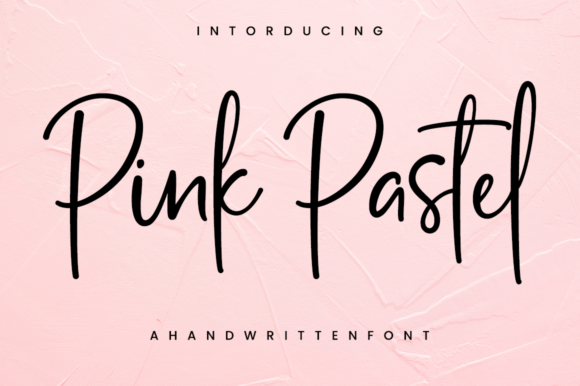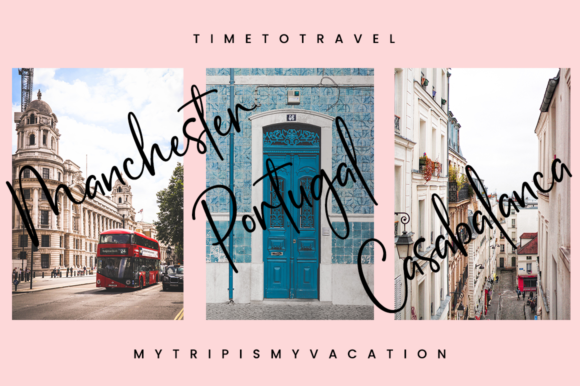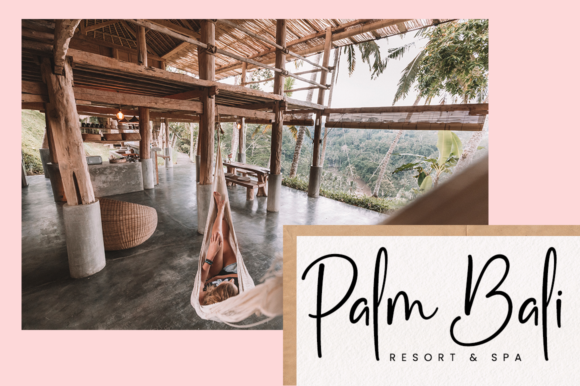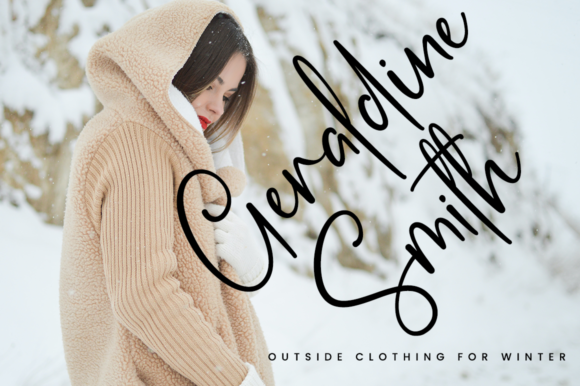
Pink Pastel Font
About the Pink Pastel Font
Make a bold statement with Pink Pastel Font, a powerful and memorable font. Pink Pastel is a lovely and delicate script font that exudes elegance and class. This font was particularly crafted for those who need a beautiful and refreshing look to their designs.
Pink Pastel’s delicate script is ideally suited for projects requiring a touch of elegance and sophistication. It works exceptionally well in branding applications such as logos for boutiques, wedding stationery, or product packaging for high-end cosmetics. Headlines and short, impactful text benefit most from its refined aesthetic; however, its thin strokes make it unsuitable for body text or long paragraphs.
The font’s inherent softness makes it best paired with fonts that offer a pleasing contrast. Consider a clean, geometric sans-serif for a modern feel, or a classic serif typeface for a more traditional approach. Pairing it with a playful, rounded sans-serif can soften its formal quality, while a bolder sans-serif can create a strong, memorable combination.
Pink Pastel projects a light, feminine, and charming personality. Its overall mood is best described as elegant yet approachable, making it well-suited for brands and projects that wish to convey a sense of refined femininity without appearing overly serious or pretentious.